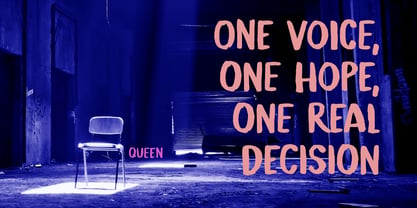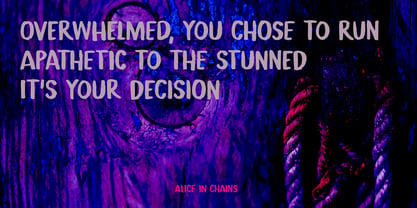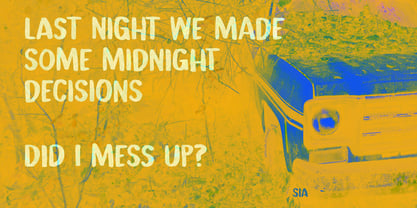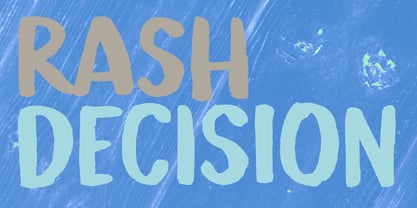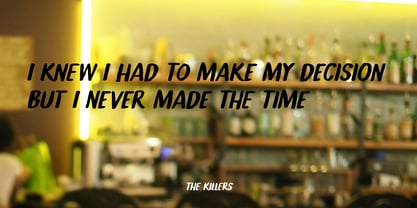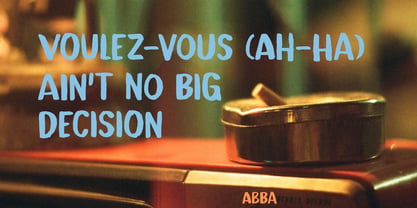
Rash Decision Pro
by Hanoded
Luckily, I am not one for making rash decisions. I usually line up all the consequences and mull it over for a while, before committing to something. That doesn’t mean I don’t regret some decisions I made, but those I just have to live with.
Rash Decision is a beautiful handmade font. I used my cheap-as-chips Japanese horse hair brushes and Chinese ink to create the glyphs. Rash Decision comes with extensive language support and a set of alternates for the lower case glyphs.
About Hanoded
Hanoded is run by Dutchman David Kerkhoff. His fonts are a mishmash of styles, as he just creates whatever pops into his head. You will find a lot of brush fonts in his collection, as his favourite tools are brushes and Chinese ink, with cartoon style fonts and script fonts complementing his repertoire. Aside from making fonts, David occasionally guides tours in far-flung places, renovates his '30's house and tries reasoning with his wife and (teenage) kids. Not an easy task!